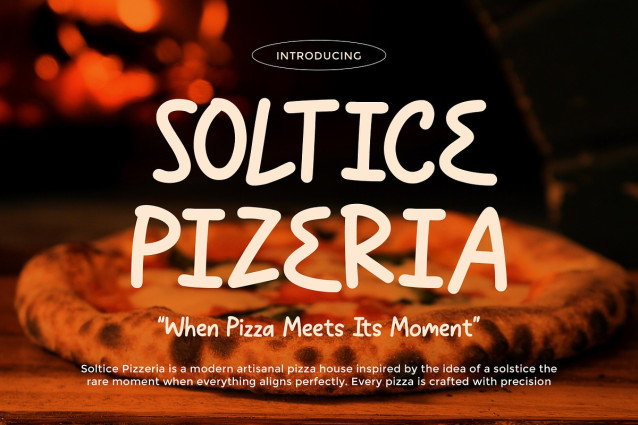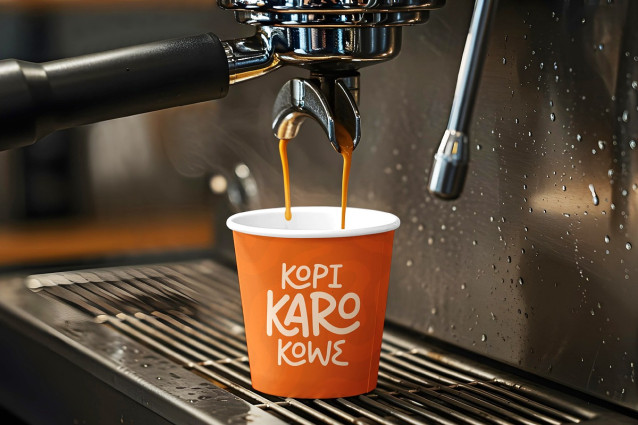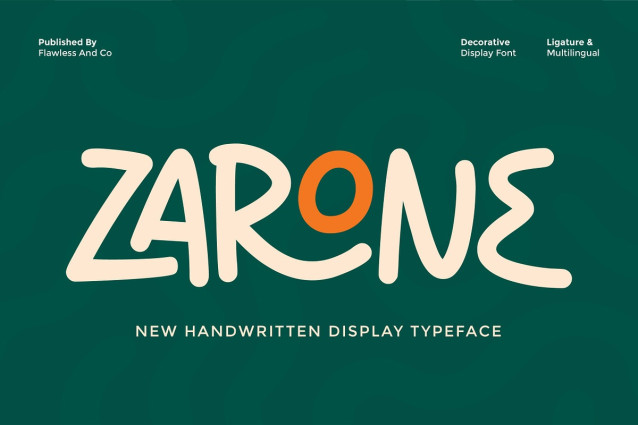
Zarone Font
Zarone Font is a charming handwritten display font designed to bring warmth, personality, and a friendly vibe to your creative projects. This font works beautifully for branding and logos that need a personal touch, while still remaining eye-catching and readable. Zarone also includes decorative details that enhance its handmade character, helping your text stand out effortlessly across both digital and print media.